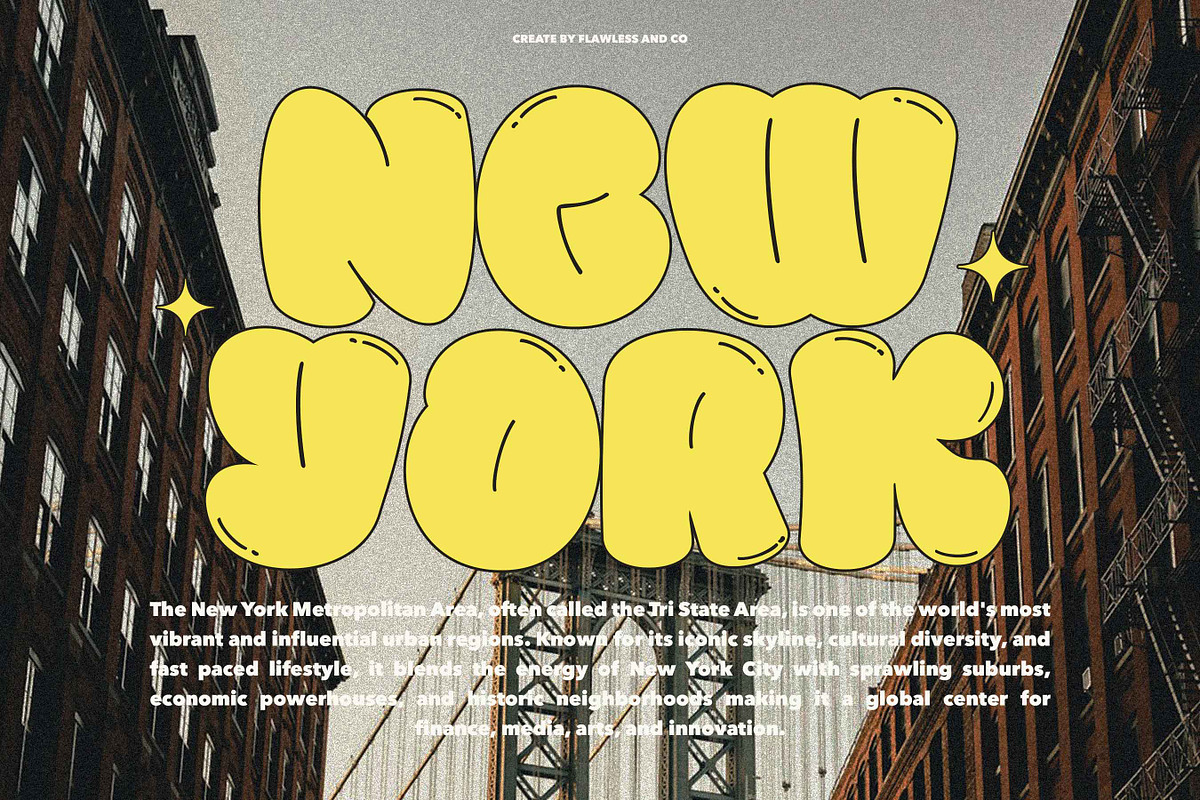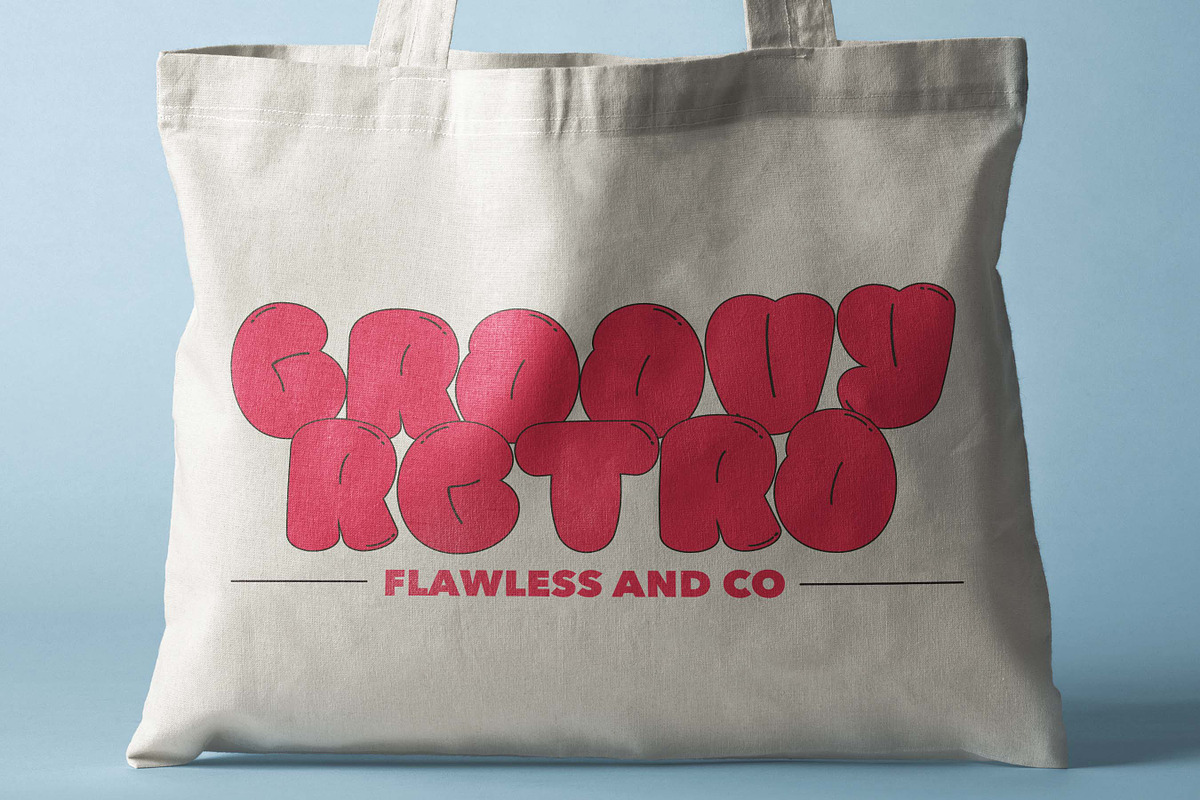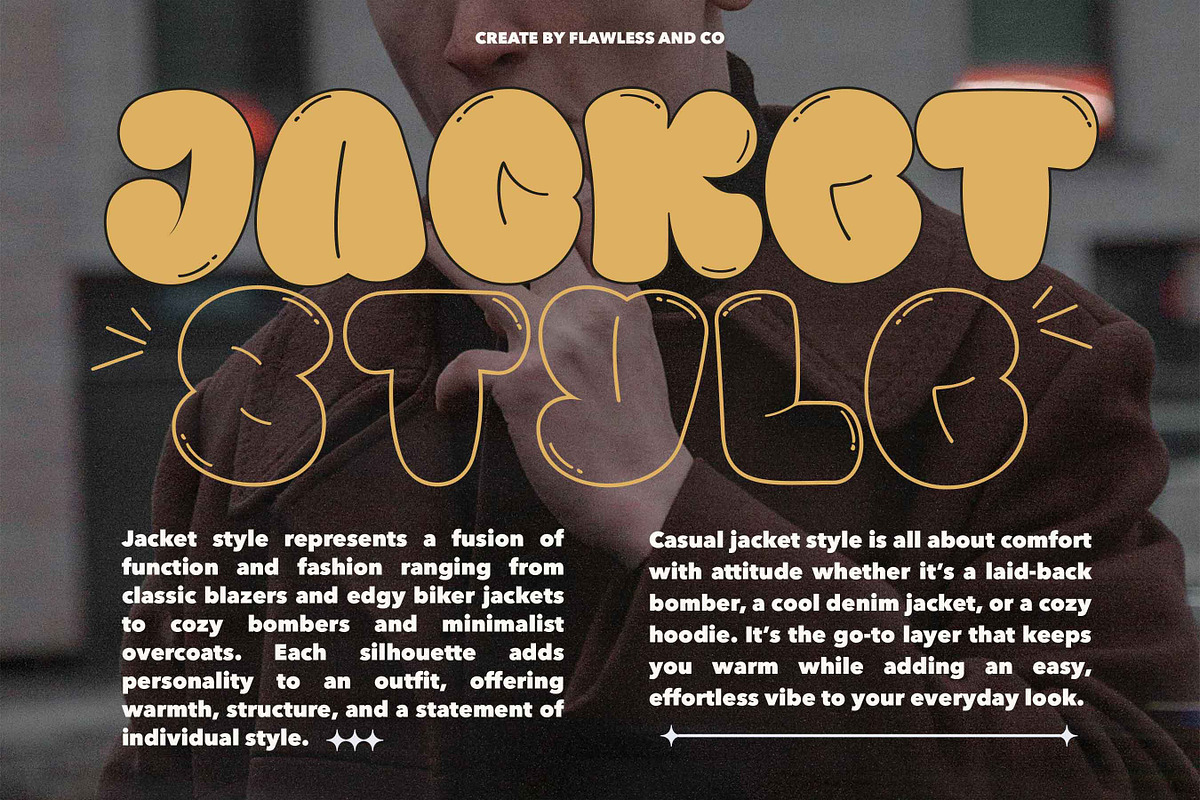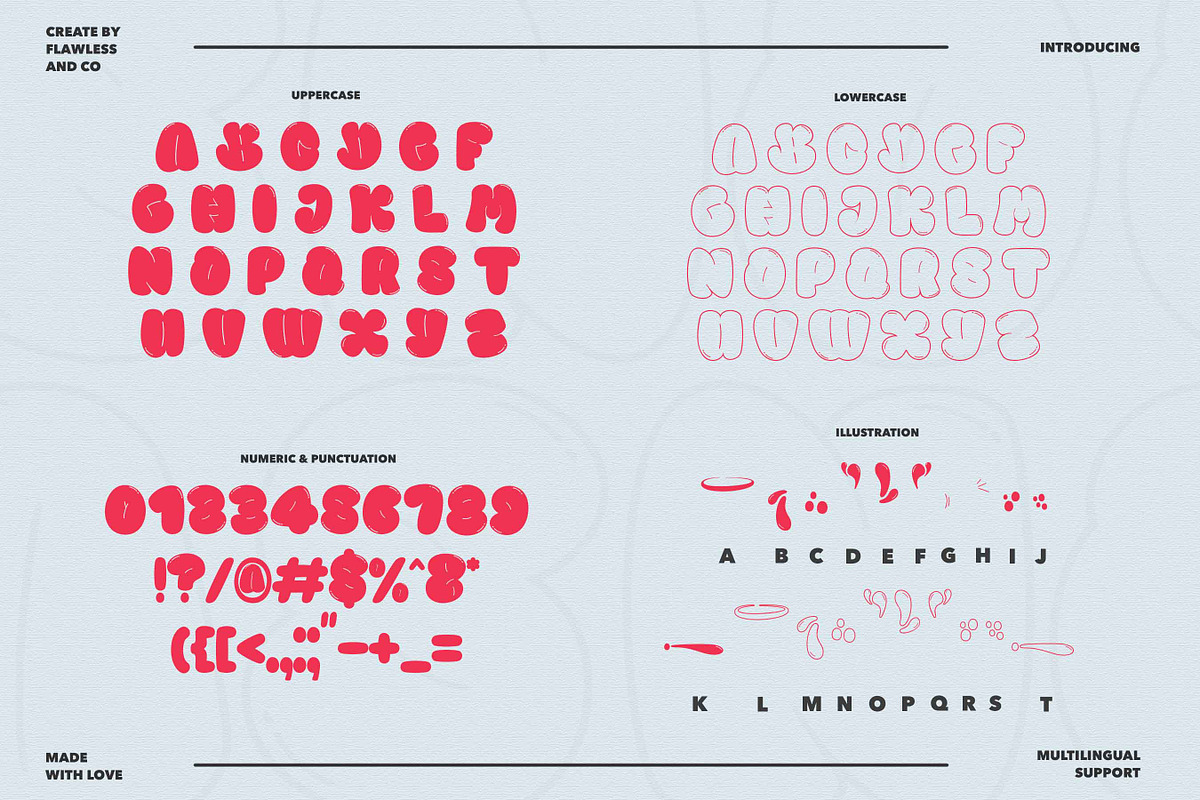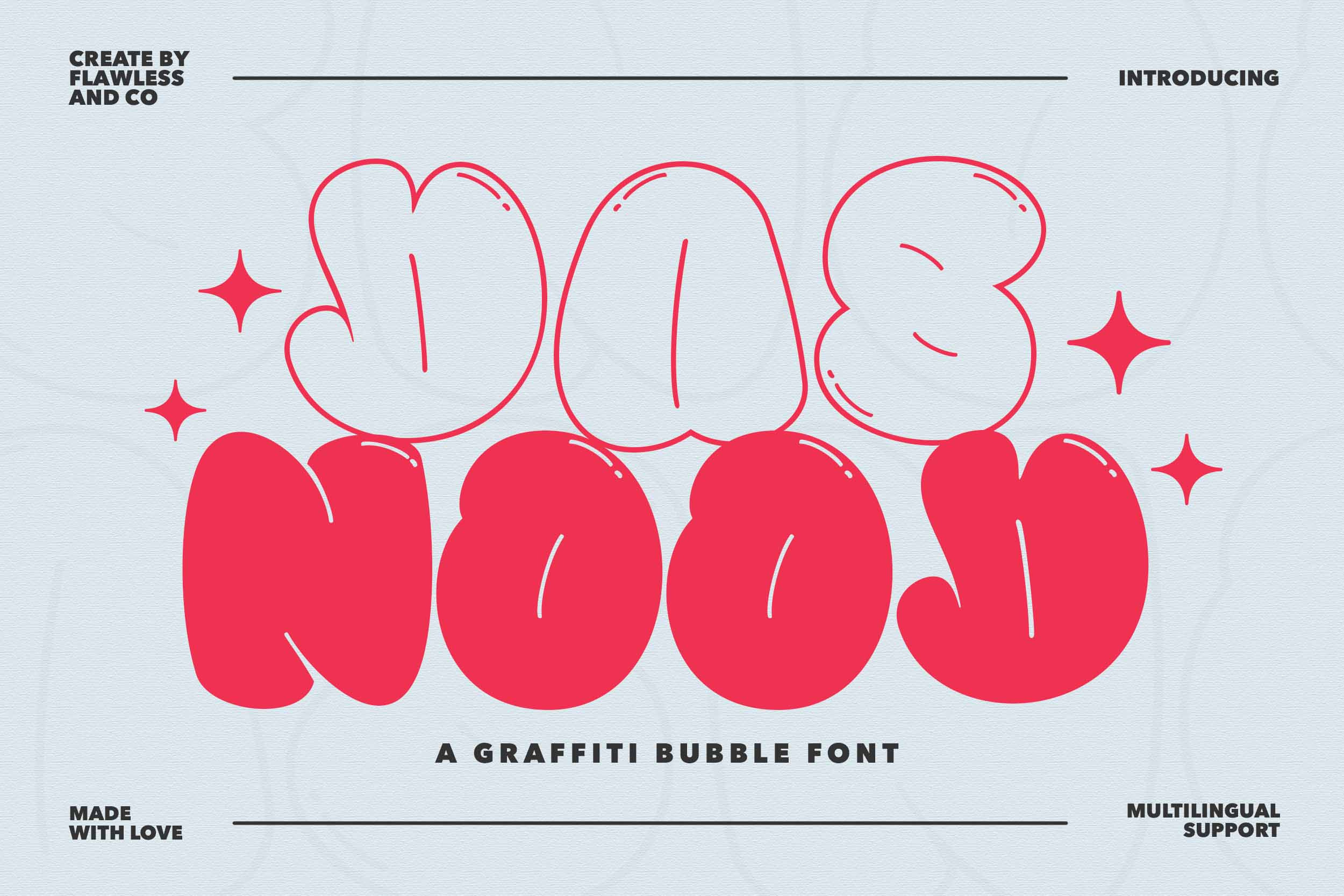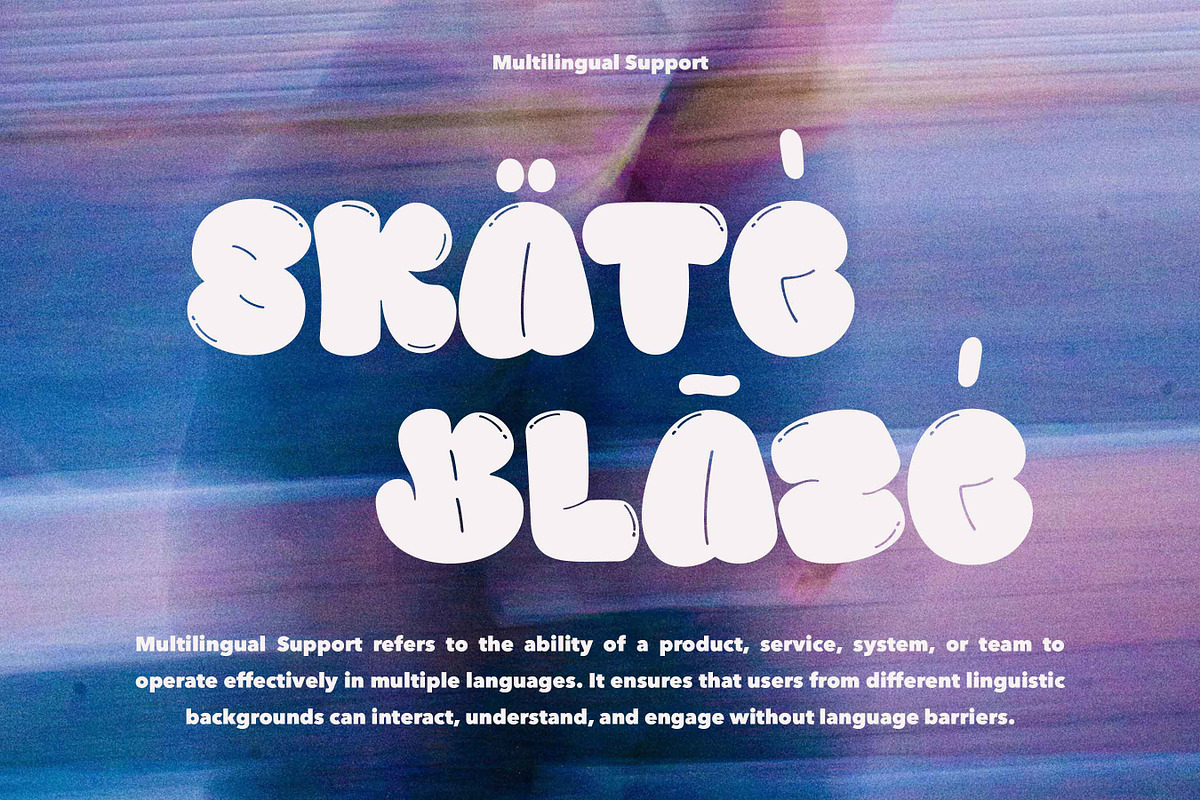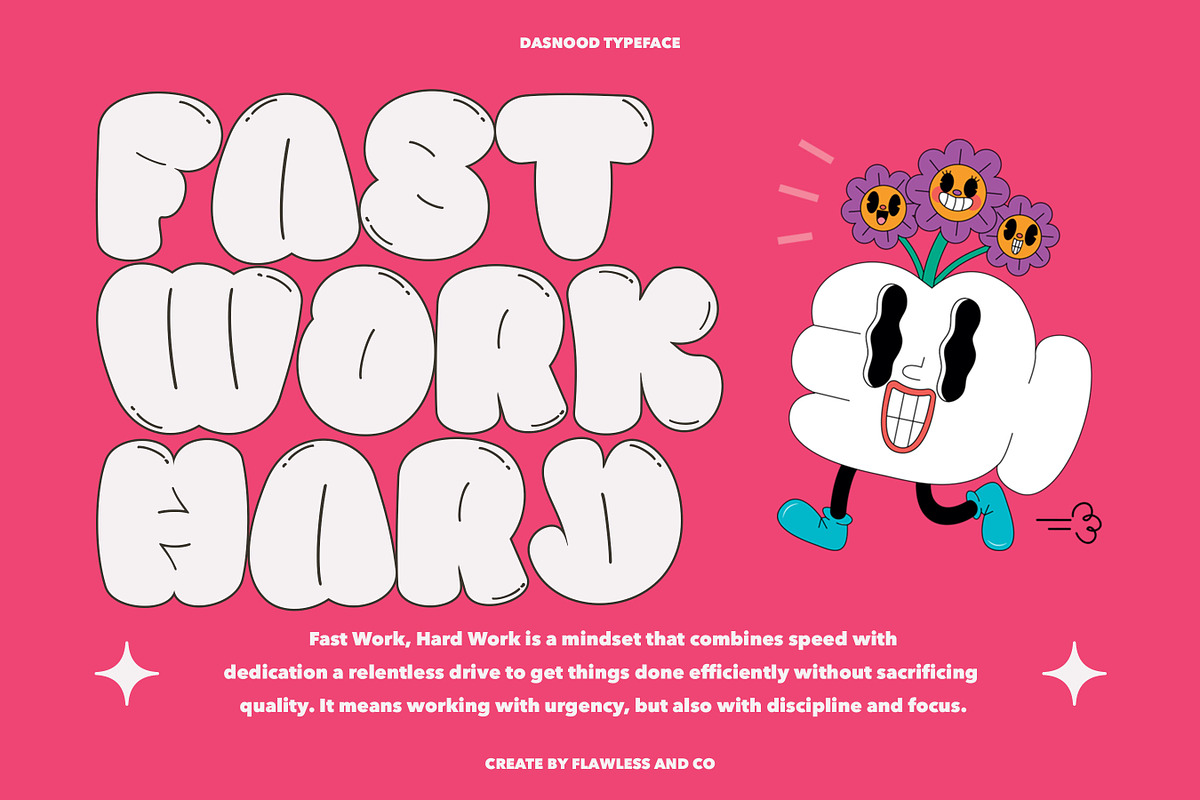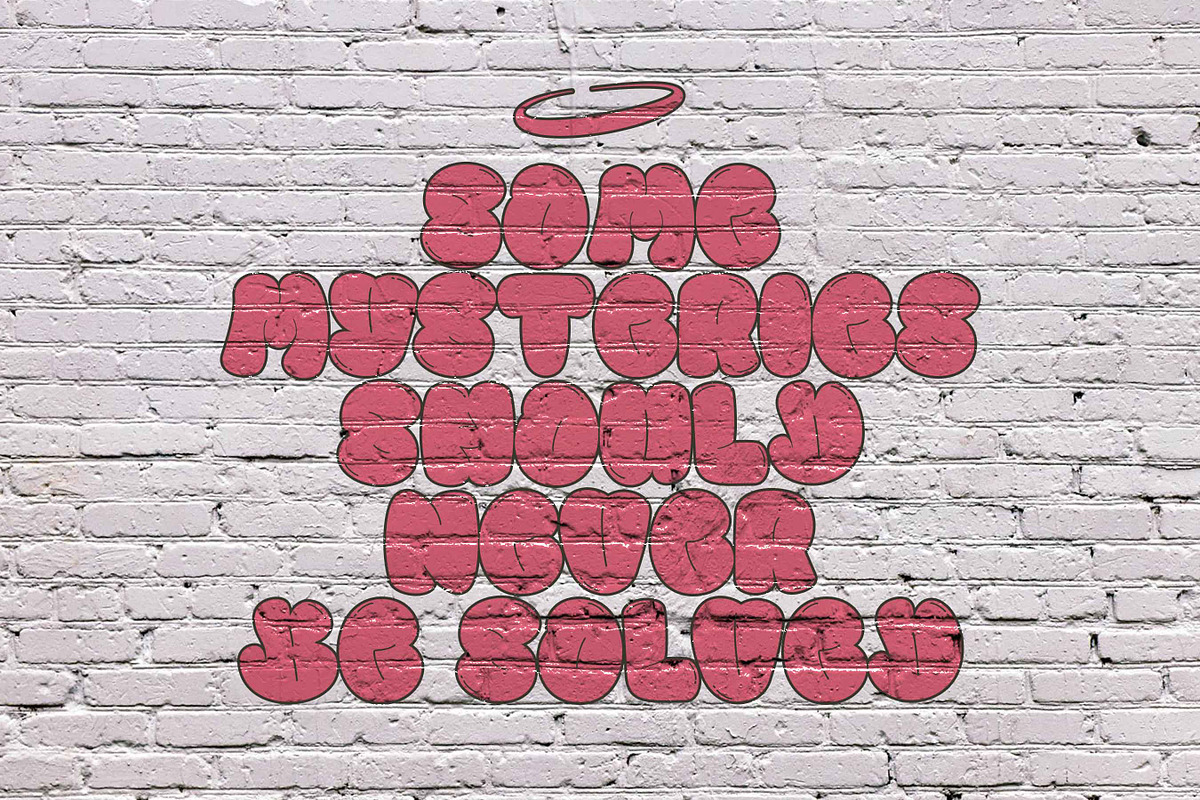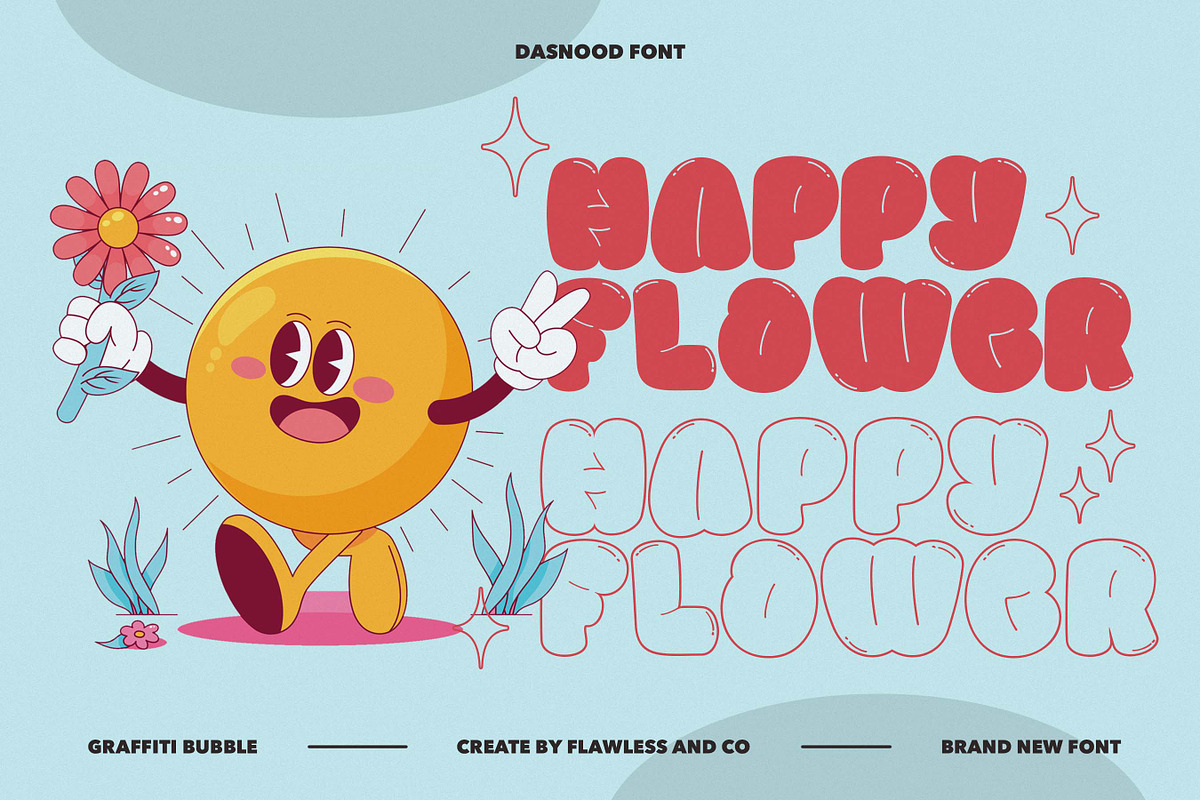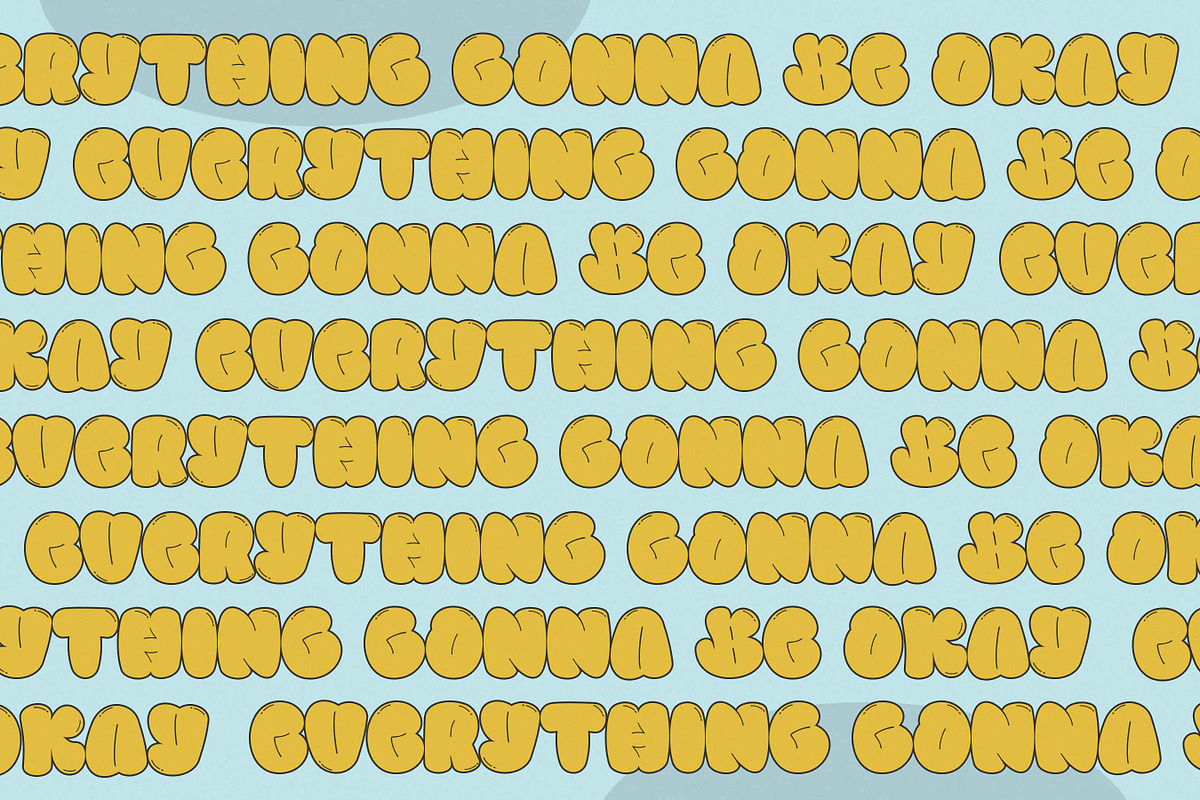
Dasnood - Graffiti Font
DASNOOD – A Graffiti Bubble Font
Bring playful rebellion to your designs with DASNOOD, a graffiti-inspired bubble font bursting with energy and personality. With its chunky shapes and cartoonish attitude, DASNOOD is made to stand out—perfect for projects that need a bold, expressive, and youthful vibe. From street-style posters to fun branding, merchandise, kids’ projects, or social media content, DASNOOD brings a pop of urban fun wherever it goes. It's loud, lovable, and made to move your message with a smile.
Who Should Use DASNOOD?
DASNOOD is perfect for designers, creatives, and brands who want to inject fun, personality, and street-smart flair into their visuals. Whether you're designing for kids, youth culture, or playful branding, DASNOOD brings that eye-catching, bubbly energy to the table.
Use it if you are:
- A streetwear brand or merch creator seeking a bold, urban typeface
- A children’s content designer looking for friendly, fun lettering
- A poster or event designer aiming for vibrant, youthful vibes
- A logo creator for quirky, character-filled businesses
- A social media designer wanting to stand out in a sea of bland type
A Must-Have Font for Brand and Logo Creators and Designers
DASNOOD is a dream come true for brand and logo designers who want to make a lasting impression. Its playful curves and bold bubble style bring instant character and memorability to any visual identity. Whether you're building a brand for a snack product, kids’ apparel, streetwear, or a creative agency, DASNOOD gives your logo a fun, fearless edge that stands out and sticks in people’s minds. If you're looking to create logos that are vibrant, friendly, and full of personality — DASNOOD is your new go-to.
Why Choose DASNOOD for Brand and Logo Projects?
DASNOOD brings bold personality and playful energy to every design — making it the perfect font choice for brands that want to stand out. Its graffiti-inspired bubble style captures attention instantly, while maintaining readability and charm. Whether you're designing for a youth brand, a streetwear label, or a creative campaign, DASNOOD gives your logo a fun, memorable twist. With its unique character and eye-catching forms, DASNOOD helps your brand speak louder, smile wider, and leave a lasting impression.
Suitable For:
- Streetwear and youth fashion branding
- Food & beverage packaging (snacks, candy, drinks)
- Kids' product logos and illustrations
- Creative agency identities and merch
- Poster & event promotions
- Fun social media graphics
- Sticker designs and playful signage
- Comic book or cartoon projects
- Urban lifestyle and skate culture visuals